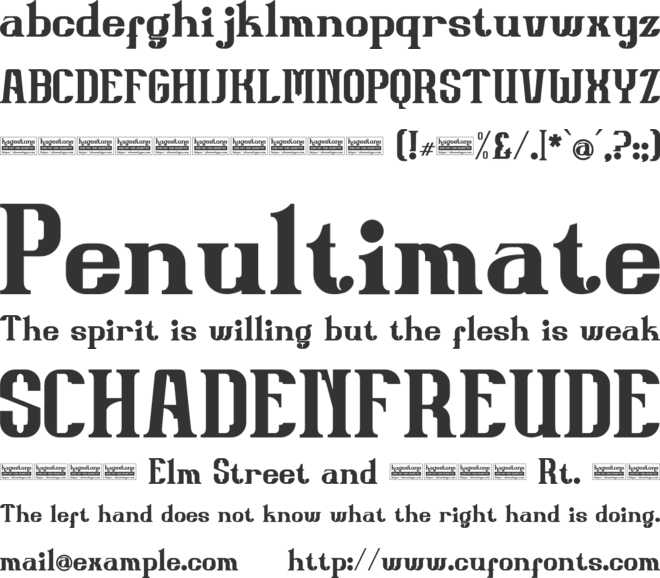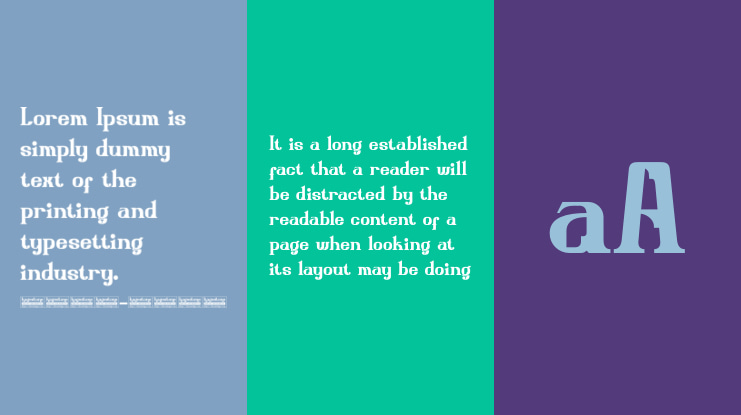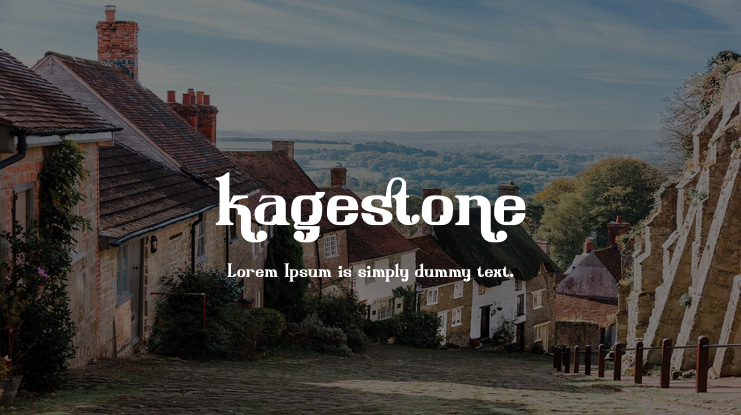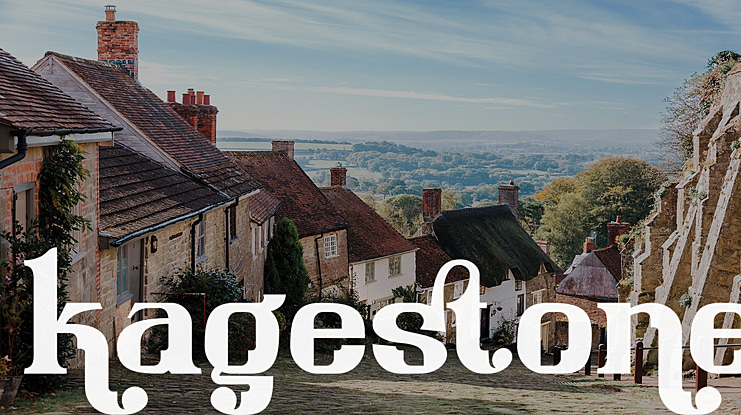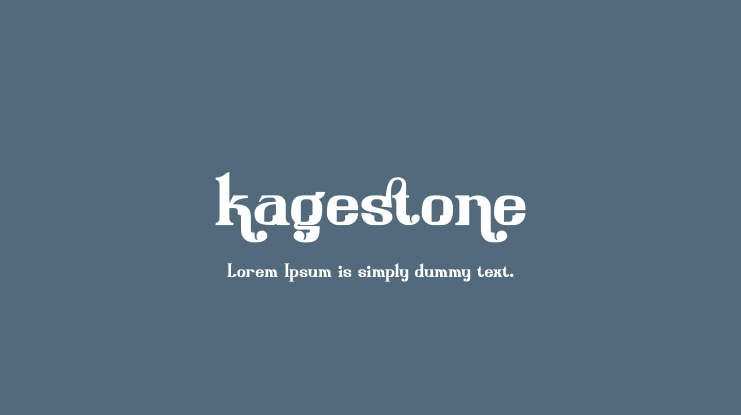
Kagestone Font Family
Kagestone is the classic display serif style with Uppercase and Lowercase feel nice balanced. Provide alternates font in lowercase variant style make the design letter looks nice. Honestly it works perfectly for headlines, logos, posters, packaging, T-shirts and much more.